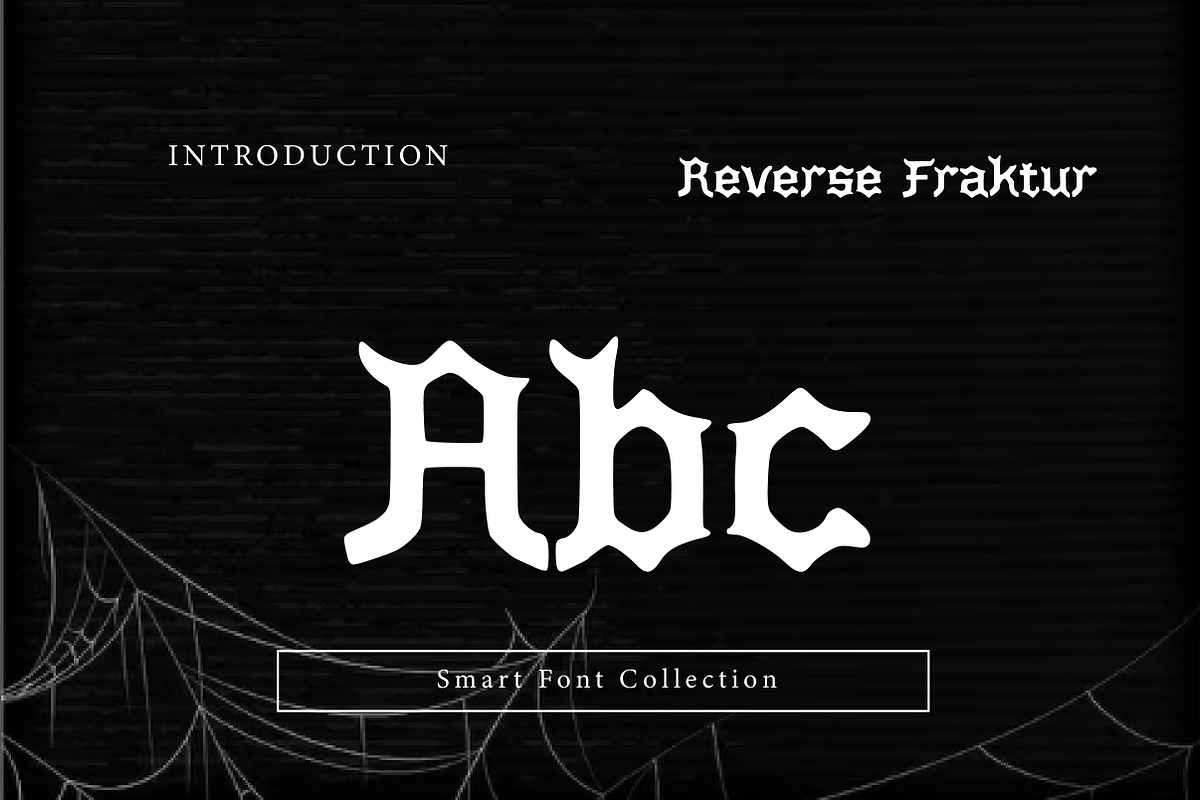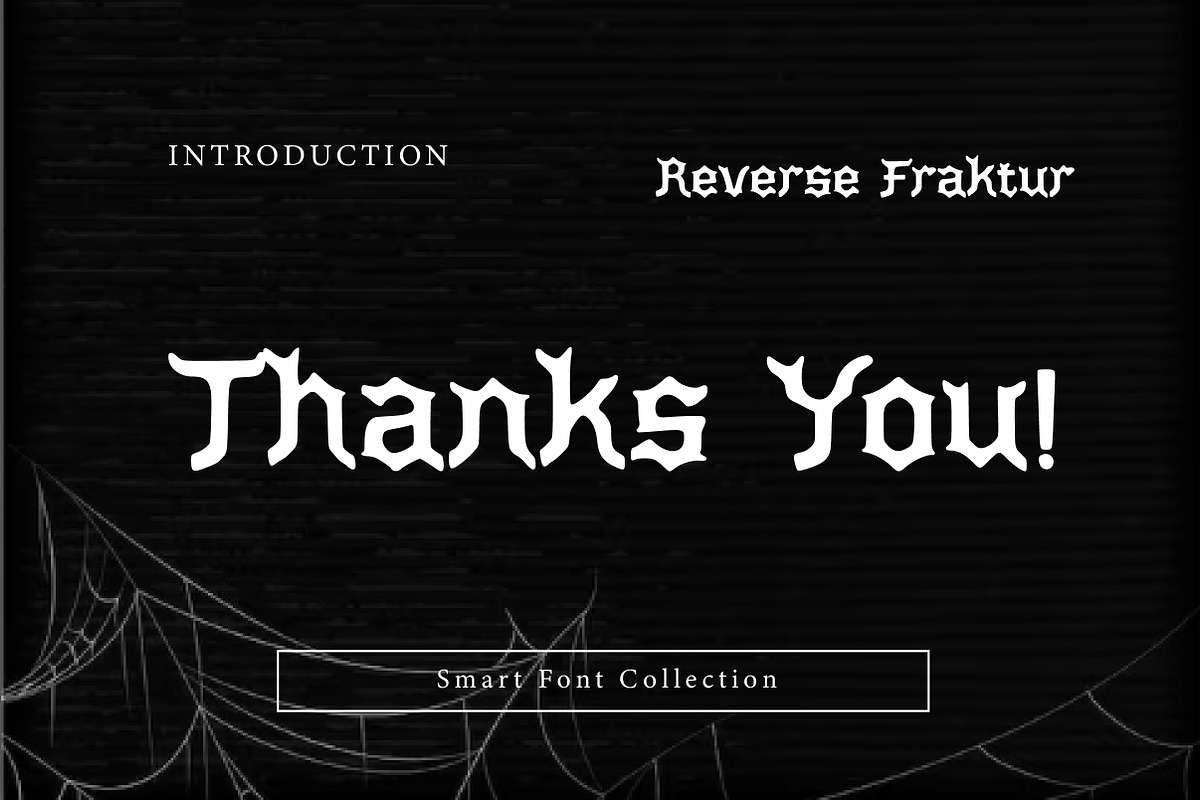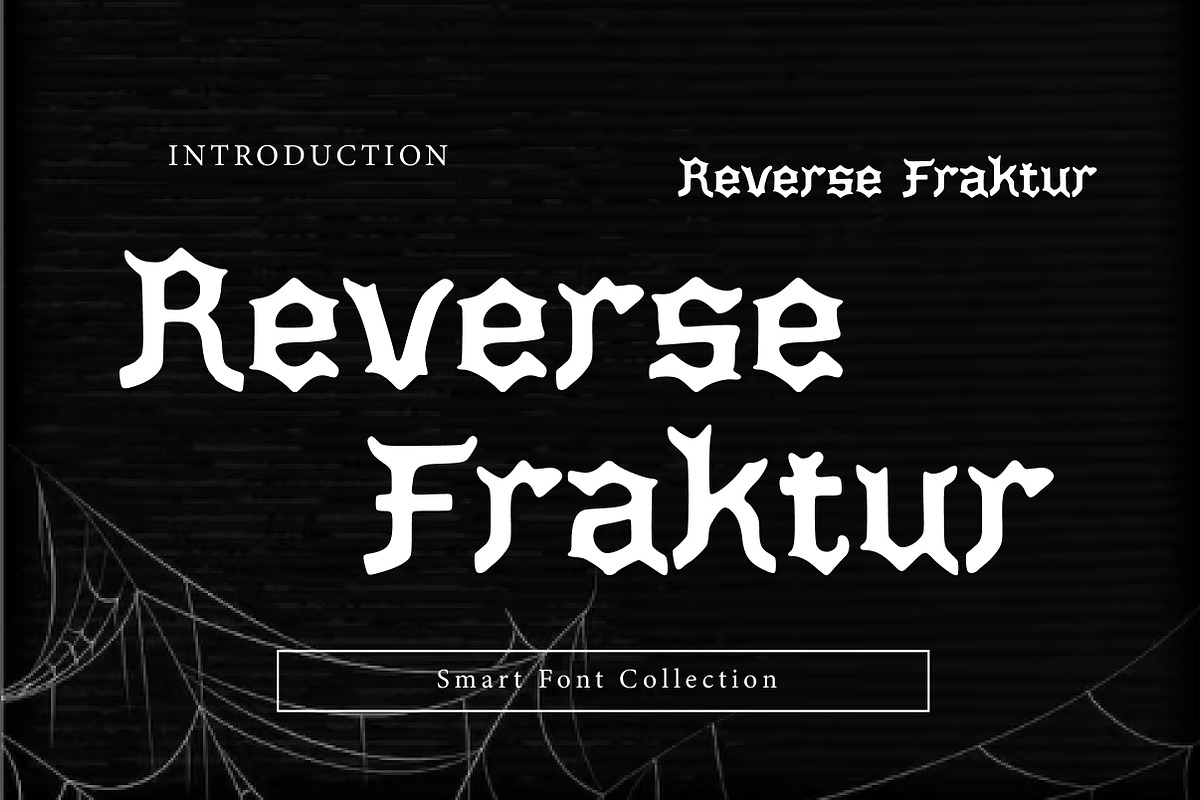
Reverse Fraktur
Reverse Fraktur is a bold, decorative blackletter font inspired by classic Fraktur / Gothic typography, with a striking “reverse” twist that gives it a dramatic, standout look. It delivers strong medieval character, sharp details, and an old-world atmosphere—perfect for designs that need a dark, historic, rebellious, or vintage feel.
Use it for band logos, posters, tattoo-style lettering, apparel designs, labels, book covers, gothic invitations, Halloween themes, packaging, signage, and powerful headlines. This font is made to create instant impact while keeping the traditional blackletter spirit.
Perfect for: Gothic branding, vintage posters, metal/rock merch, dark aesthetic projects, and medieval-inspired graphics.